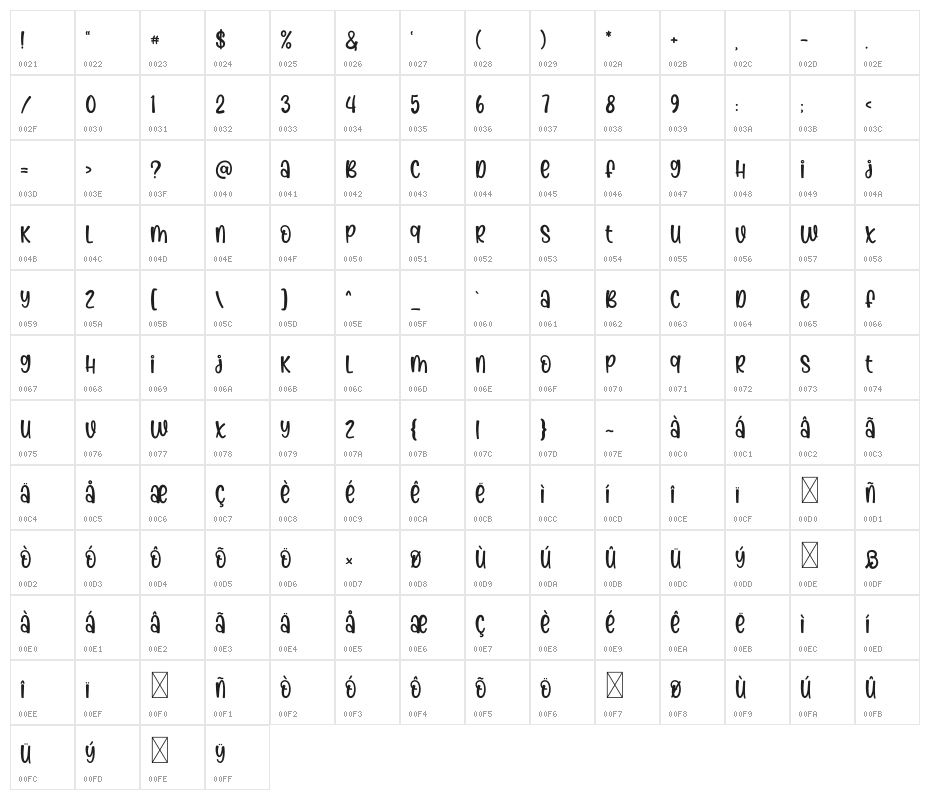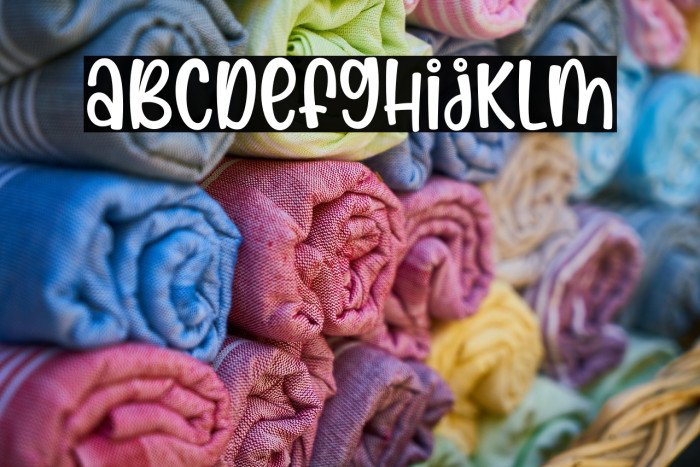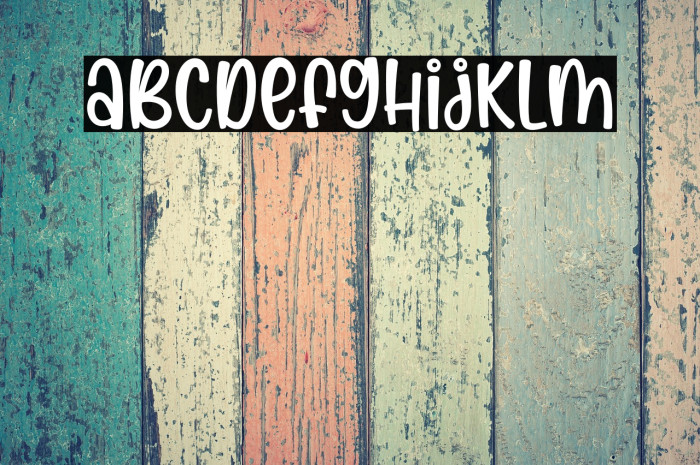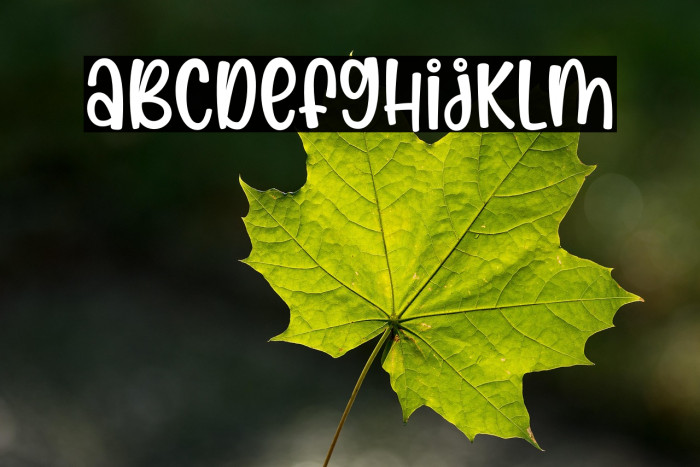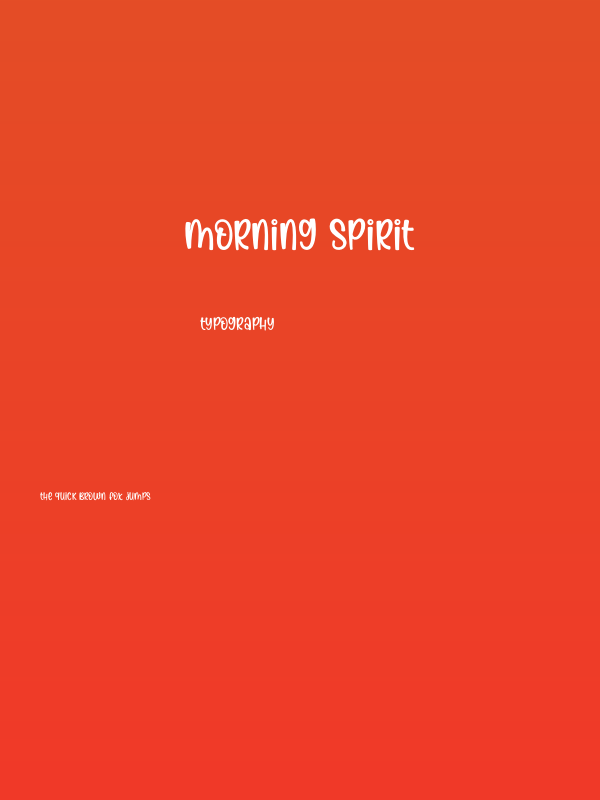
Morning Spirit Font
Morning Spirit Description
This font features a playful and whimsical style with a handwritten appearance. The letters are rounded and slightly irregular, giving it a casual and friendly feel. The strokes are consistent in thickness, providing a uniform look across all characters. The uppercase and lowercase letters maintain a cohesive design, with some characters exhibiting unique flourishes that add to its charm. The numerals and special characters are designed to match the overall aesthetic, ensuring a harmonious look throughout. This font is ideal for projects that require a personal touch or a fun, informal vibe.
| Overall Style | Playful, Casual |
| Proposed Projects | Greeting cards, children's books, playful branding, social media graphics, and casual invitations. |